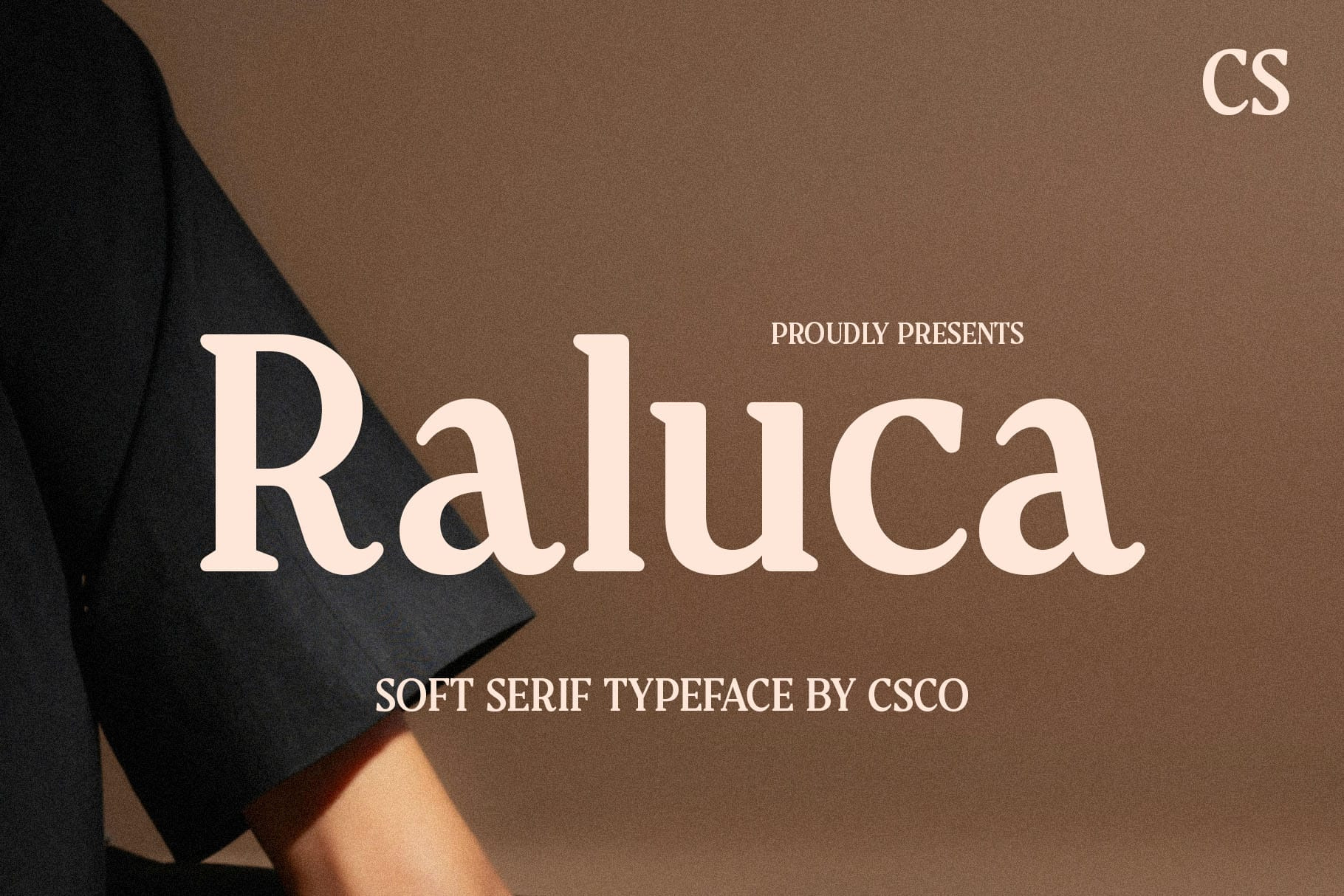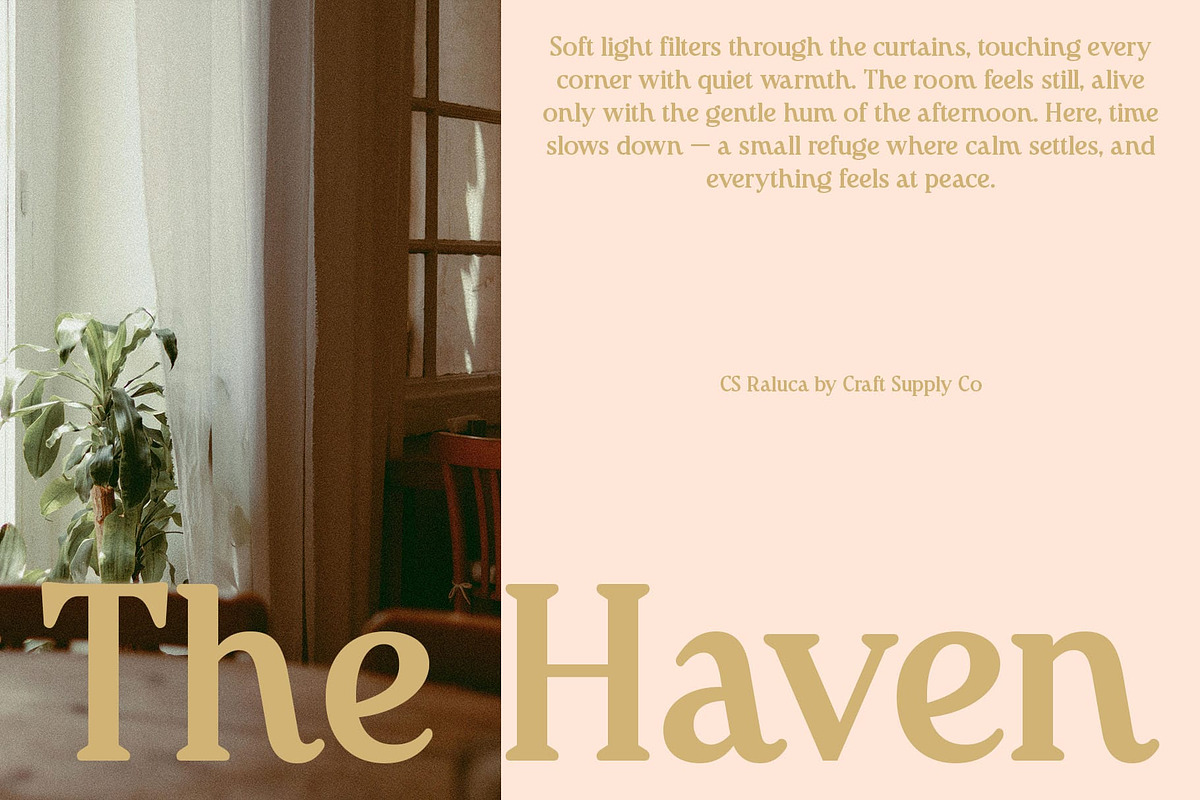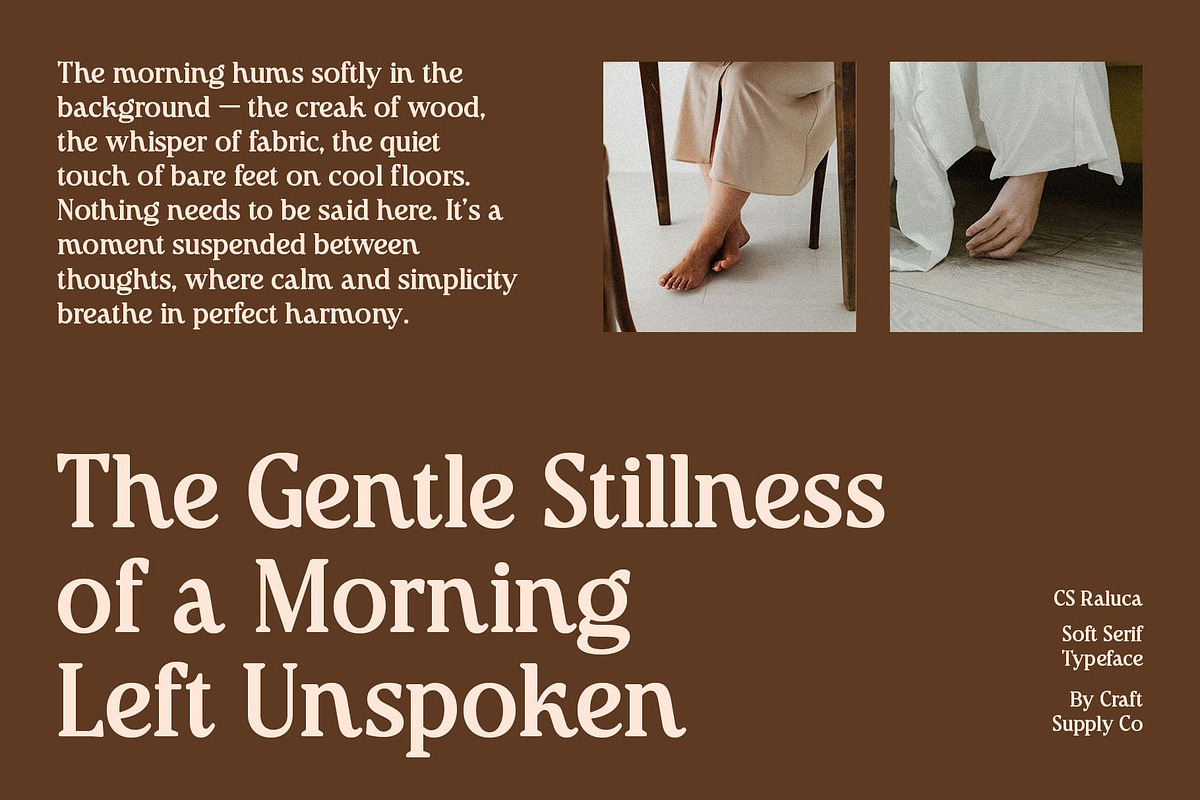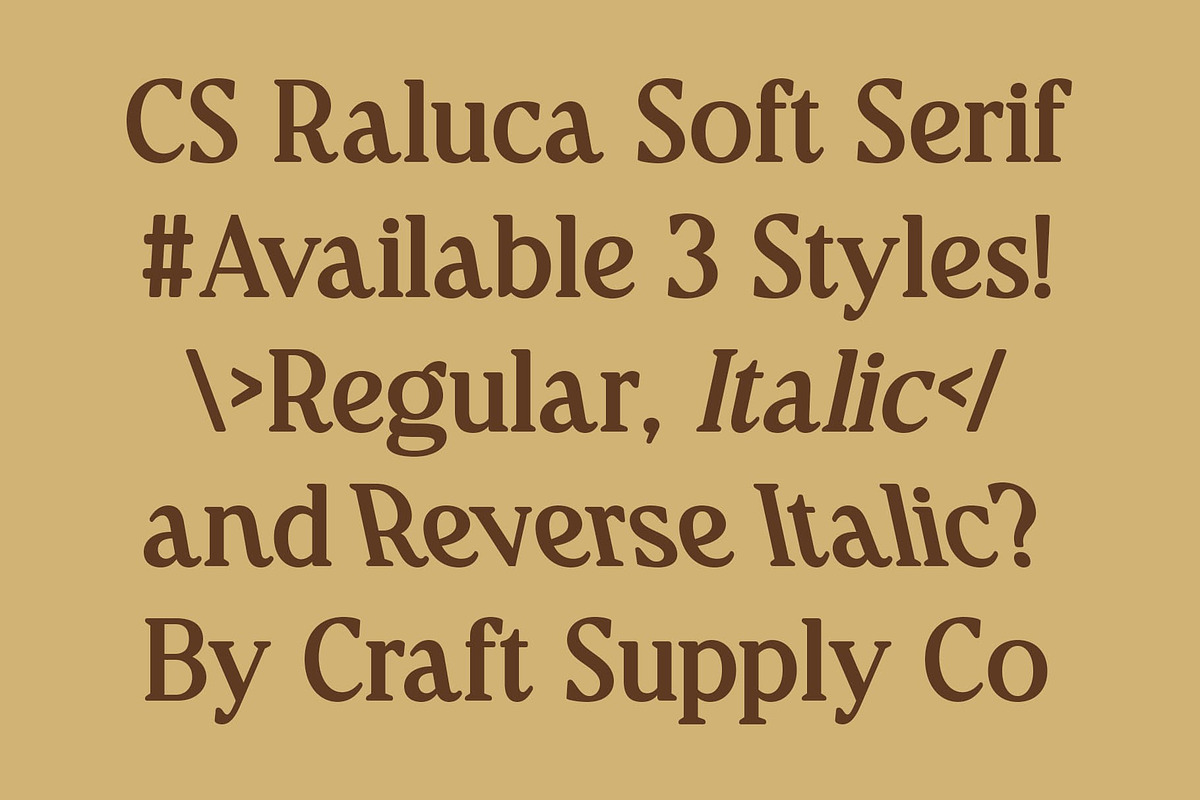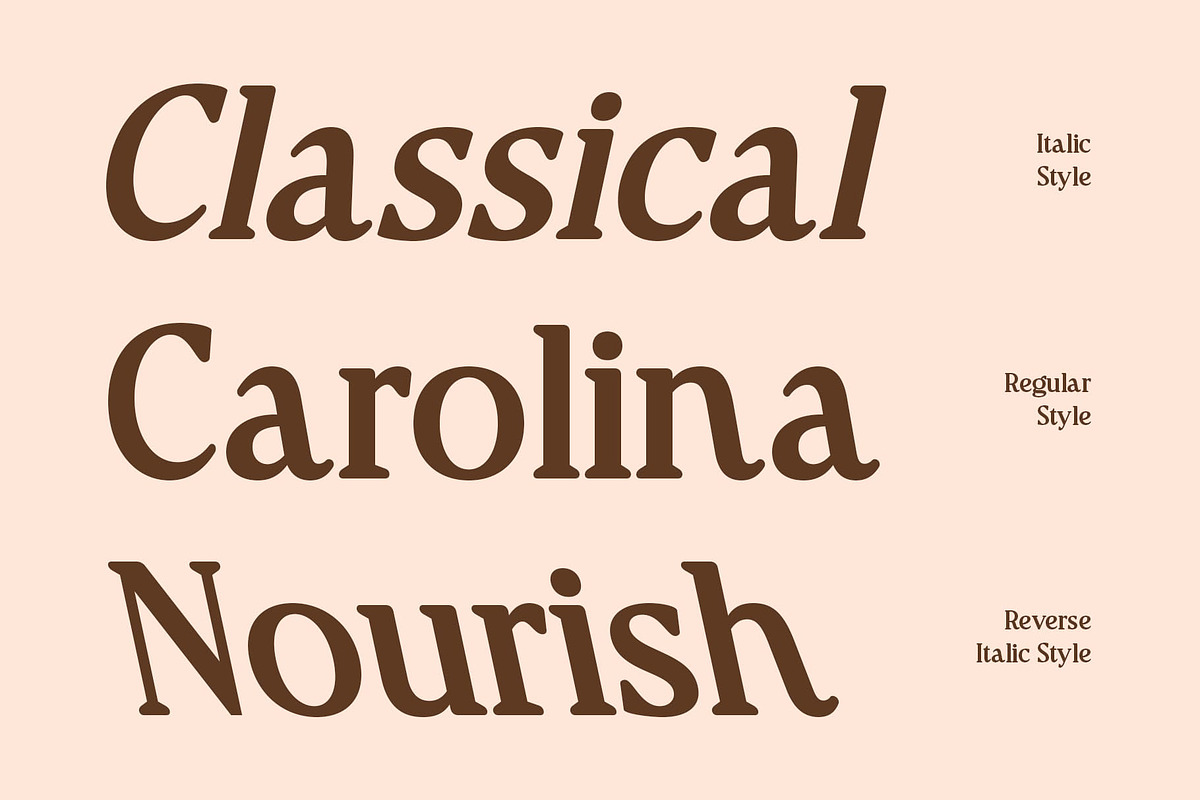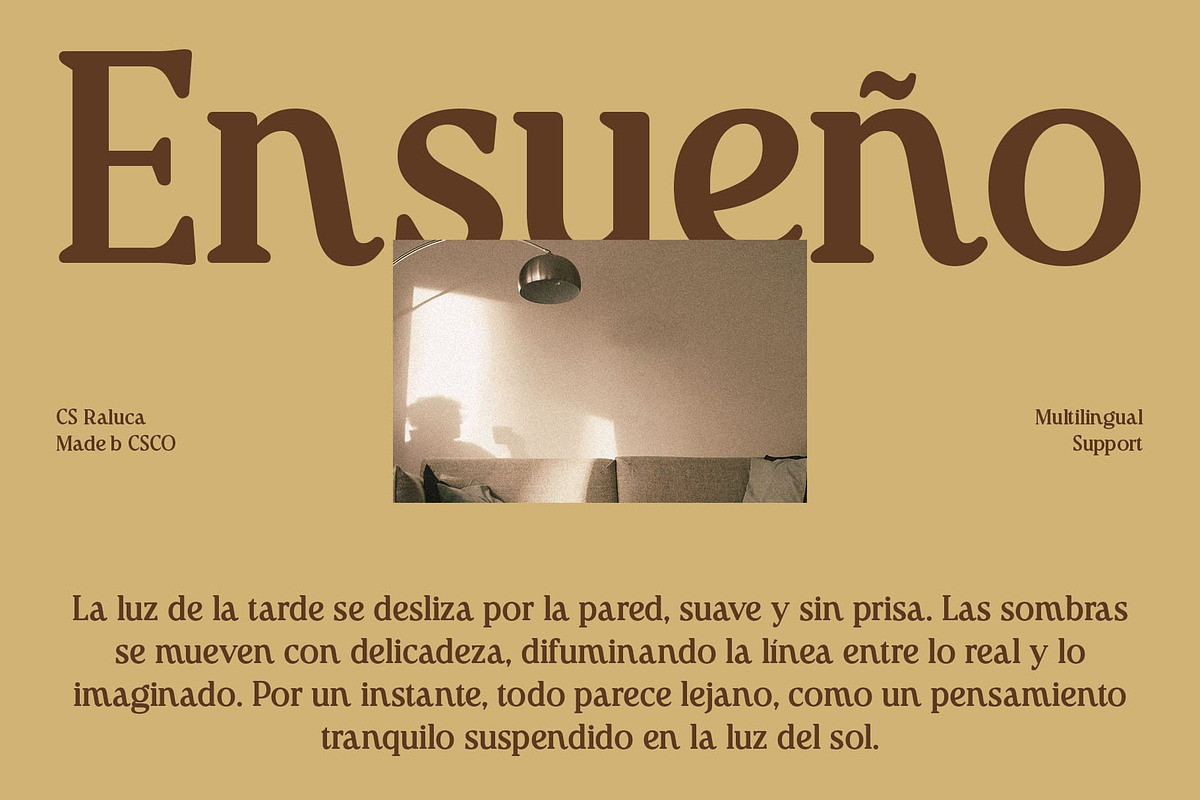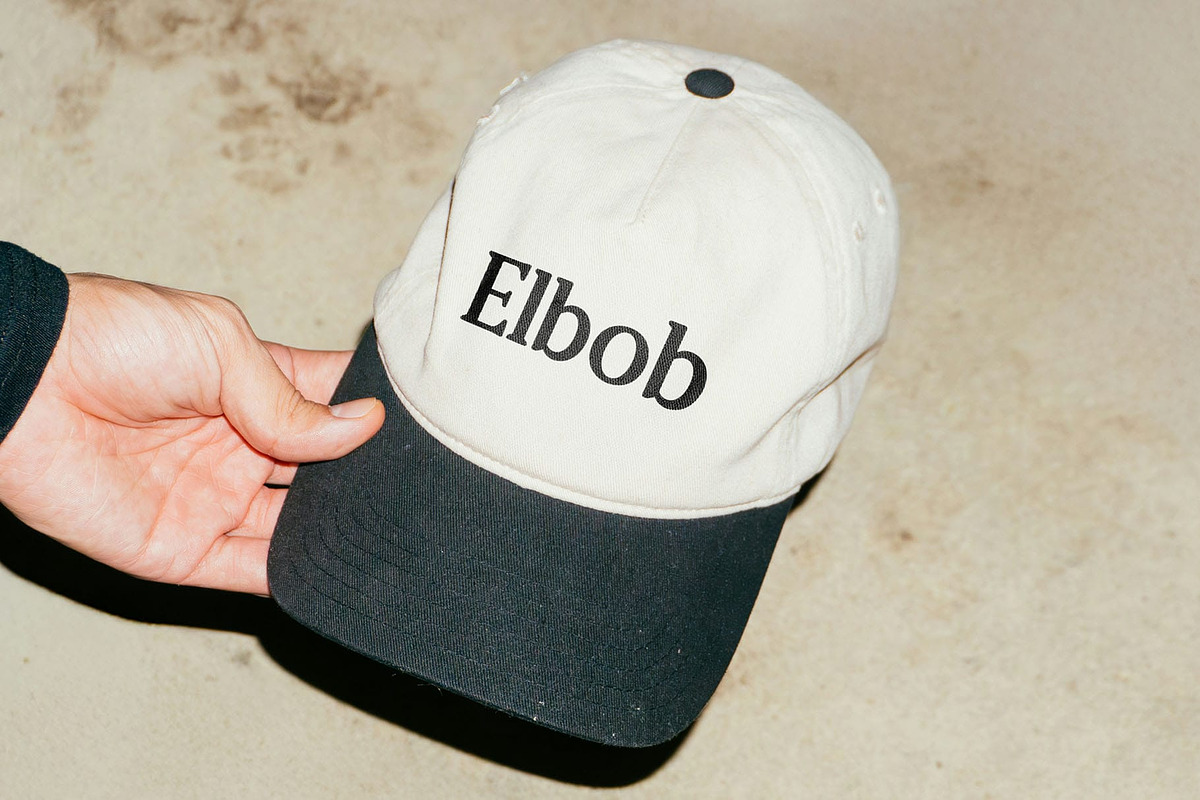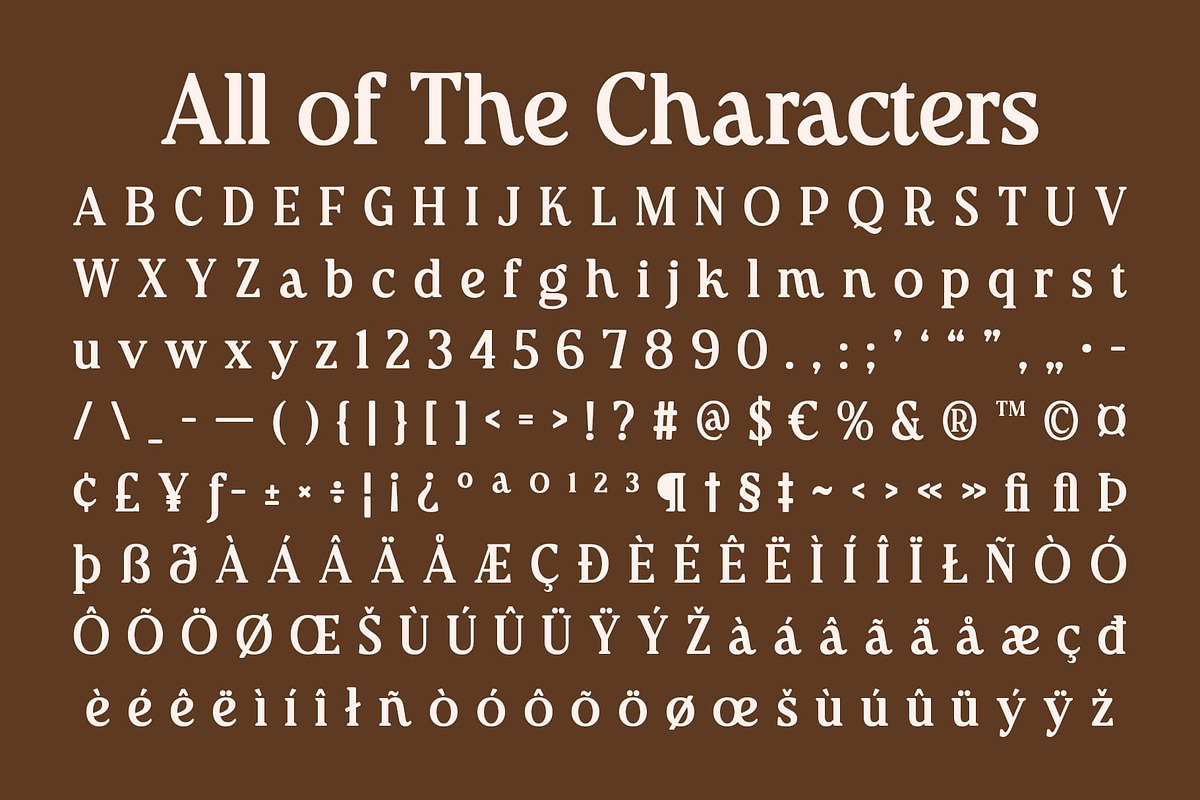
CS Raluca – Retro Font
CS Raluca – Retro Spirit with Timeless Energy
Bold Retro Font with Playful Character This is a timeless retro serif font that brings the charm of the past into modern design. Its bold, curvy shapes and playful energy capture the essence of vintage typography, making it perfect for projects that celebrate nostalgia and creativity.
Nostalgic Design with Modern Versatility While inspired by classic retro styles, this font maintains a fresh and adaptable look. Its smooth curves and balanced proportions give it a friendly yet confident personality, suitable for both modern and vintage-inspired layouts.
Playful and Eye-Catching Presence With its lively forms and bold strokes, this font instantly draws attention. It combines the warmth of retro aesthetics with a dynamic, contemporary twist ideal for designs that aim to be both fun and memorable.
Perfect for Branding, Posters, and Retro Campaigns From branding and posters to retro inspired campaigns, this font brings a vibrant personality to any project. Its nostalgic charm and bold design make it the perfect choice for designers seeking to blend timeless style with playful modern energy.